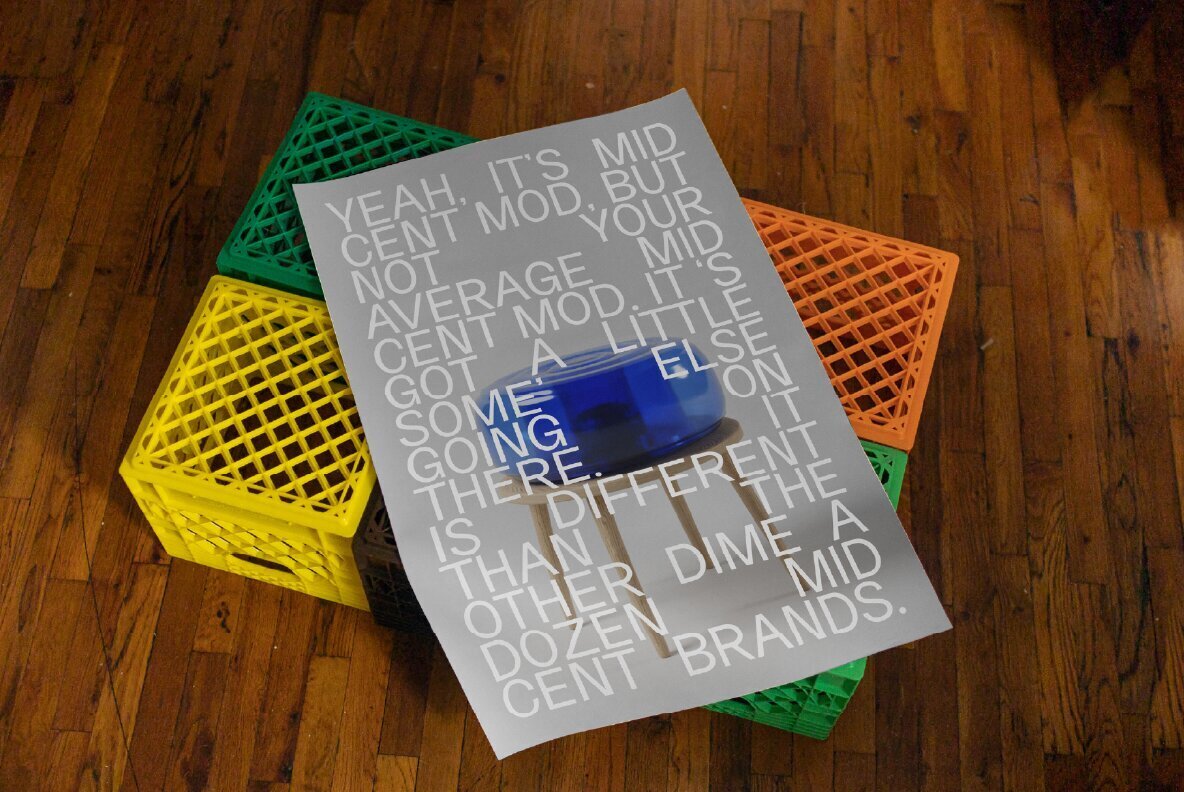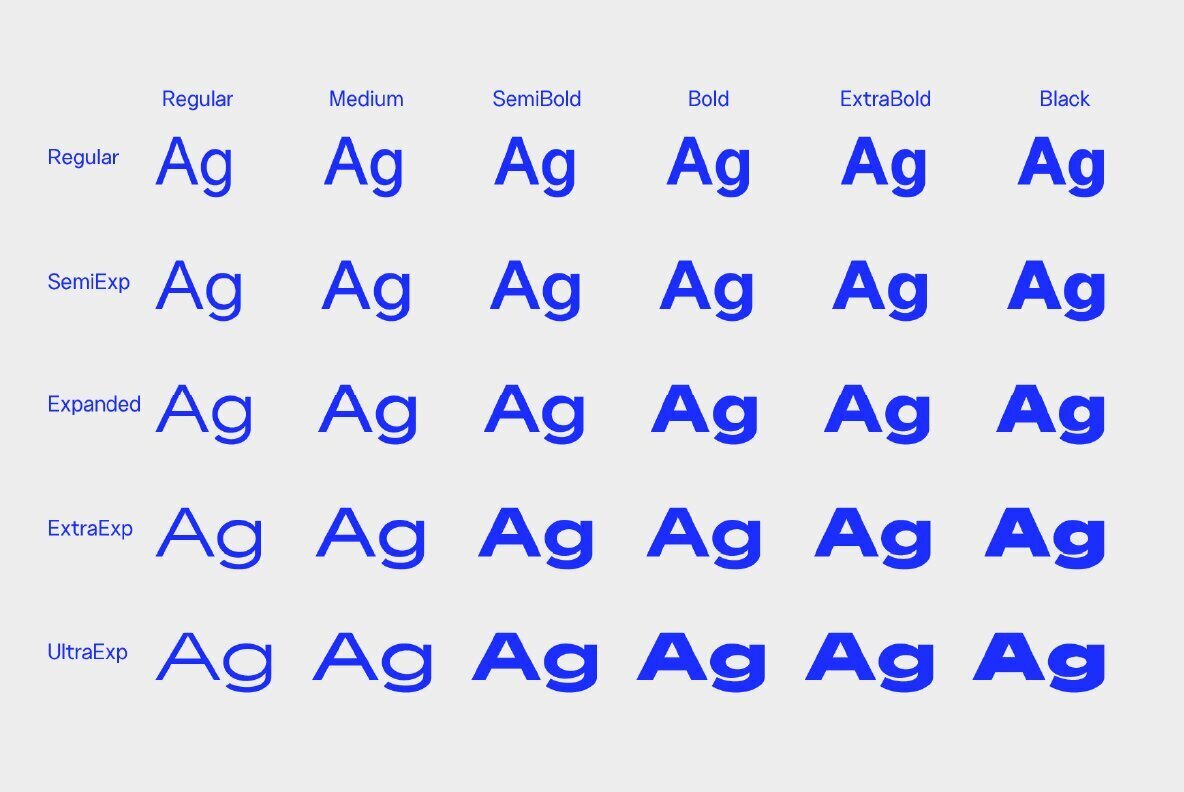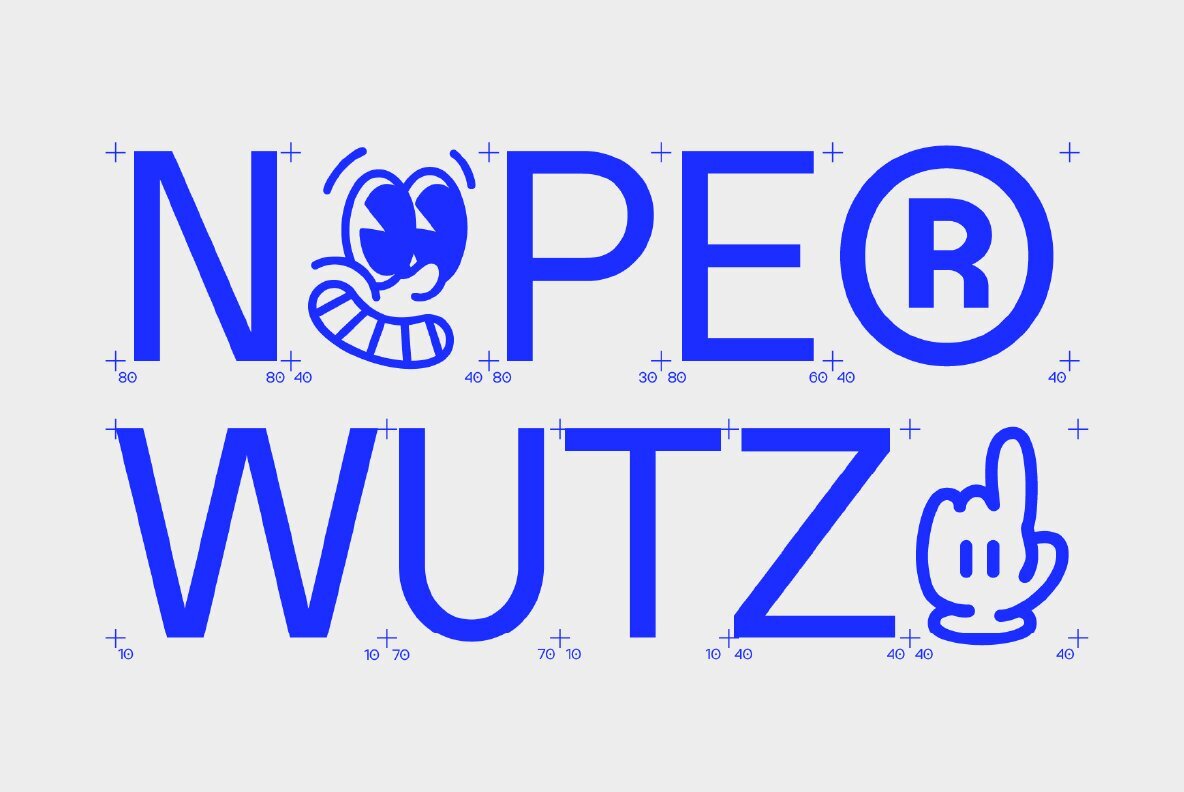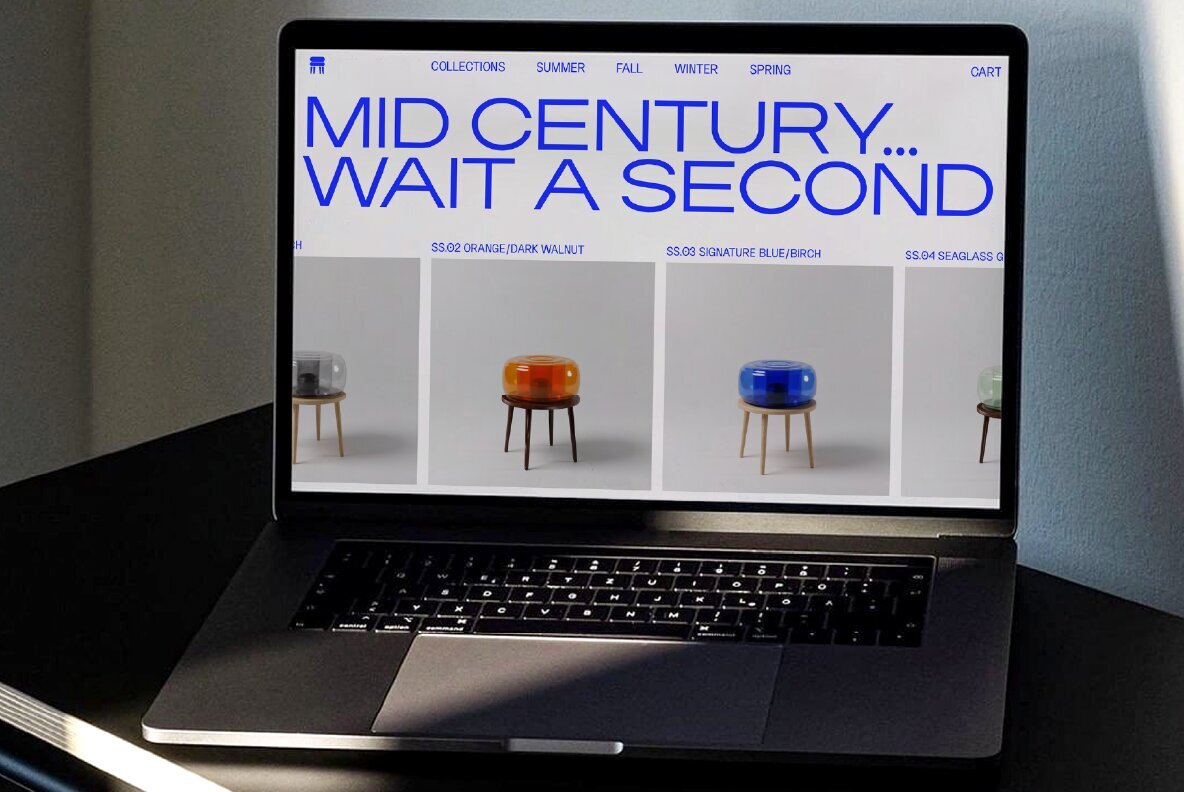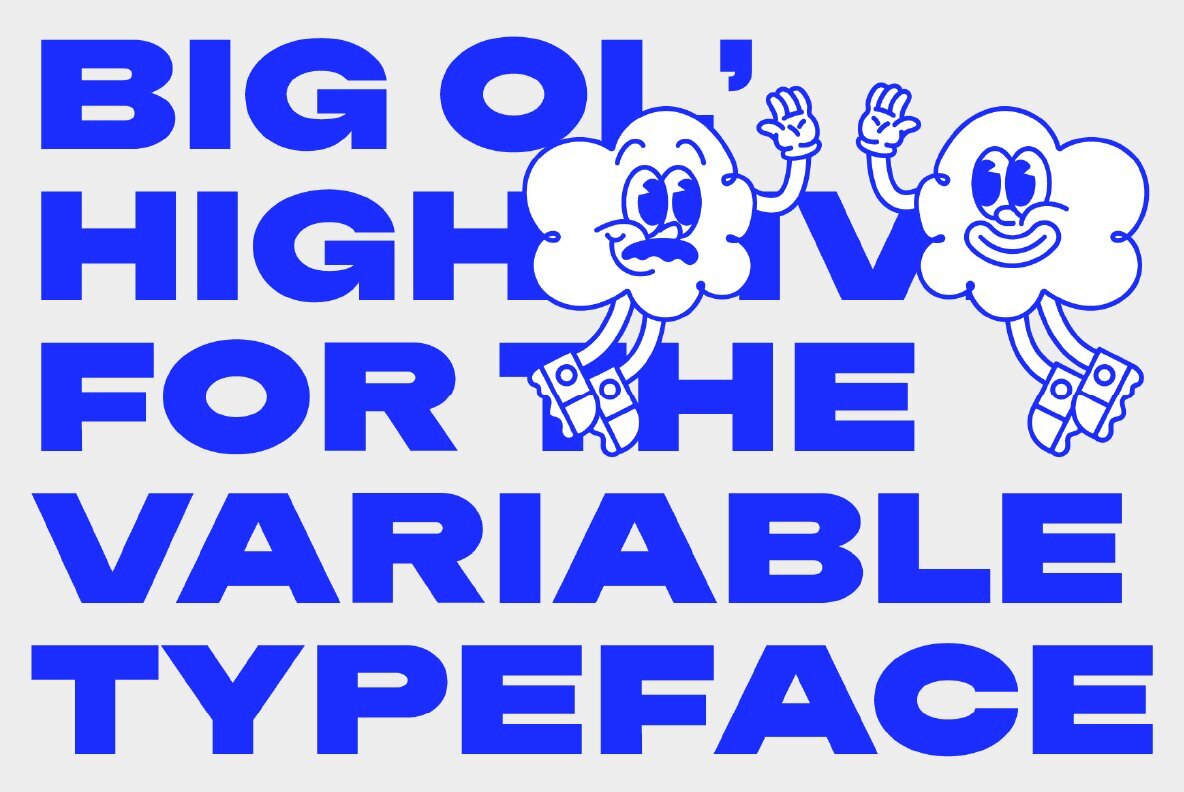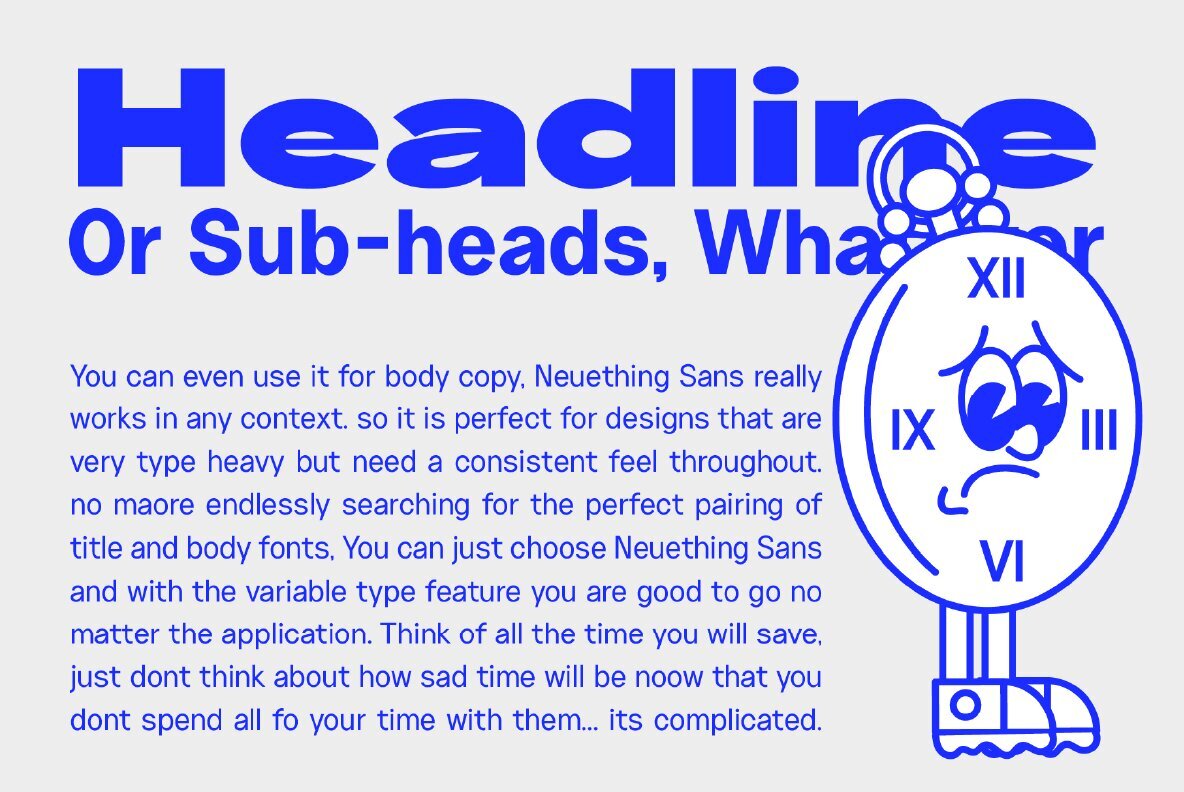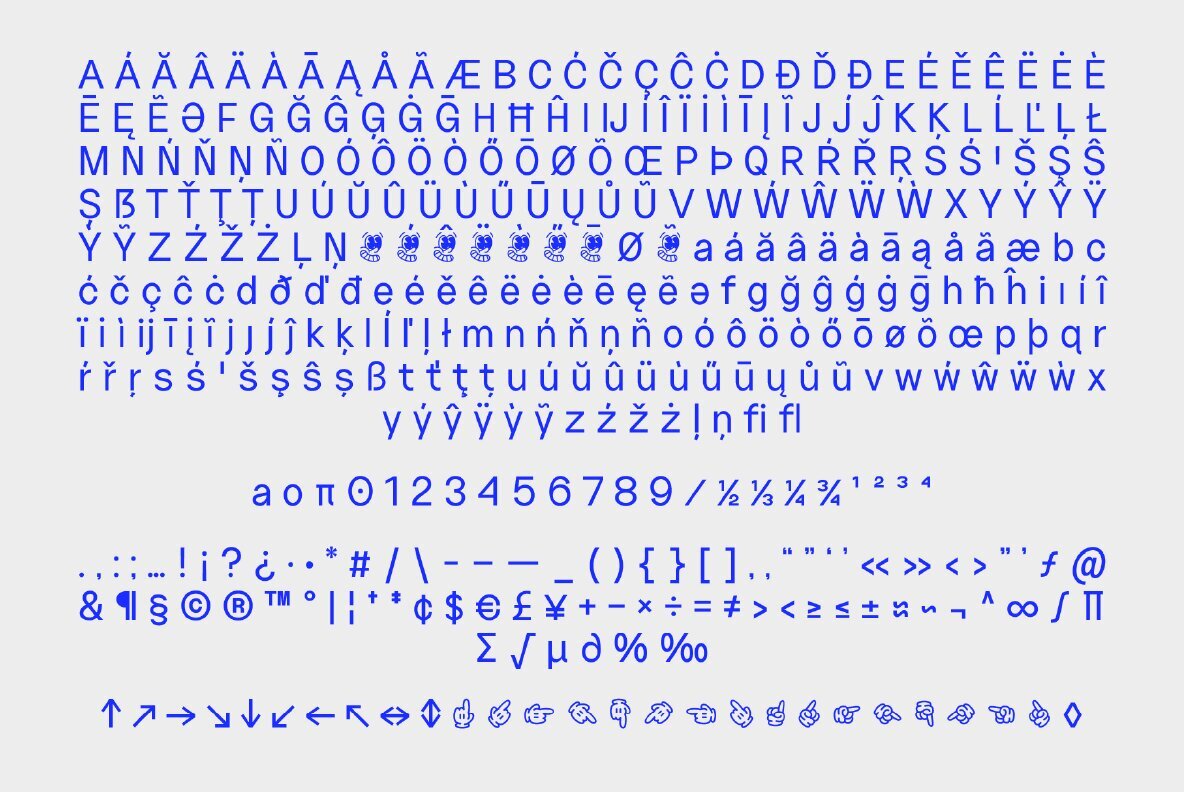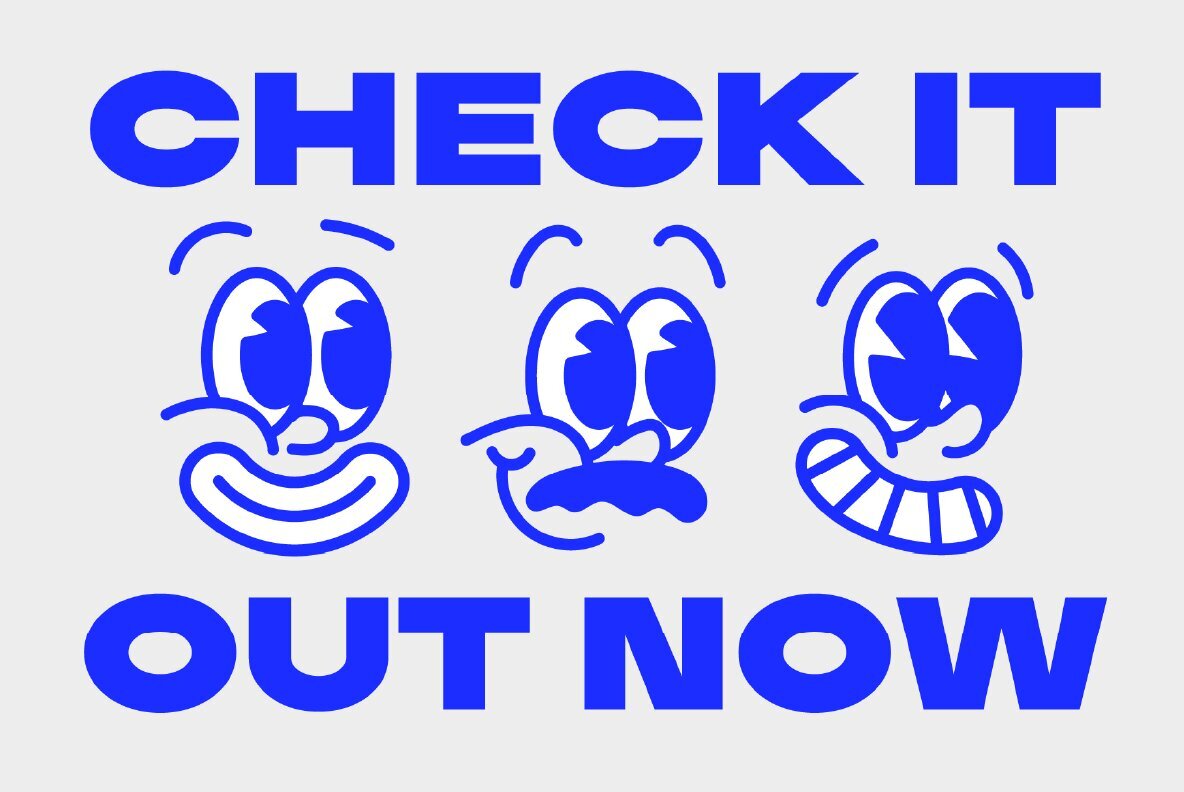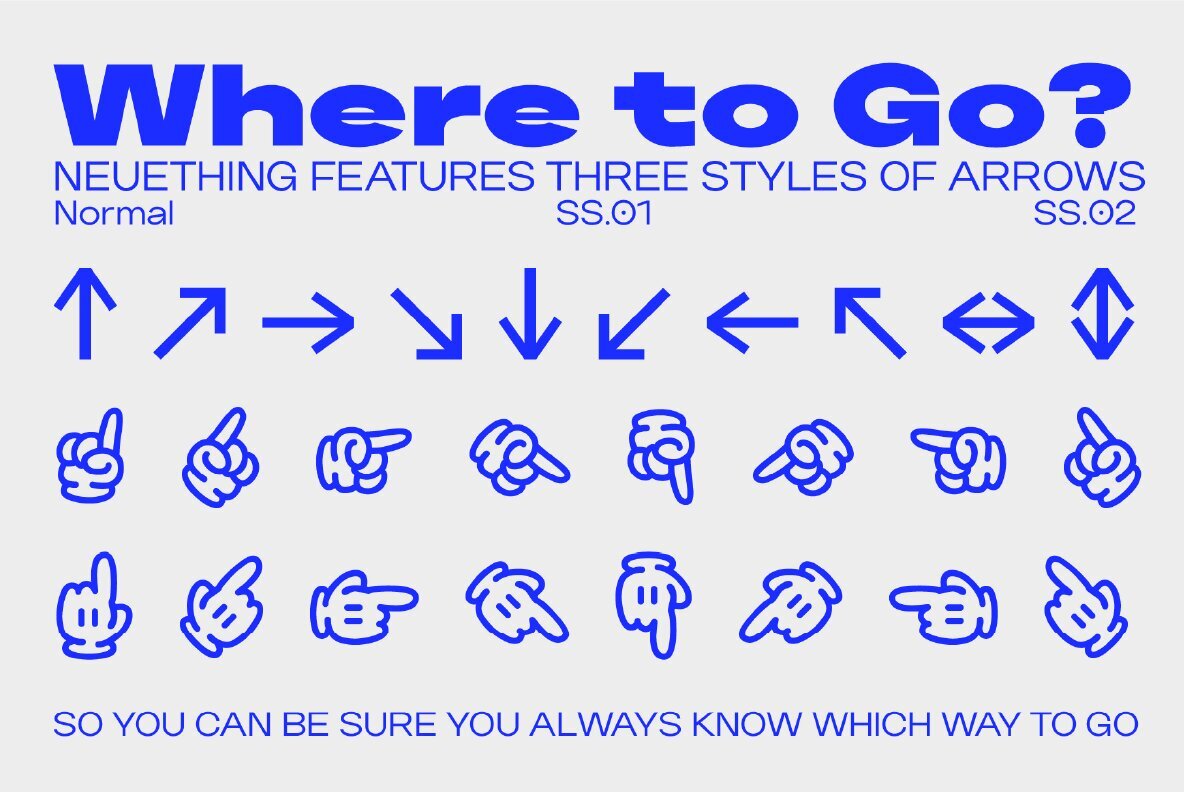
Neuething Sans Font
Neuething Sans is a creative's clean simple sans serif. It is extremely versatile, and I use it in every project because it pairs so well with any other typeface. It is perfect for body or headlines, posters, magazines, Instagram, books, branding, you name it. It has been meticulously crafted and refined over months and months until it has just enough personality to be a beautiful sans without calling attention to itself. This is your new go-to geometric sans serif. Whether it's modern, vintage, retro, contemporary, this can fit in anywhere. Helvetica who? Am I right...
- Added a variable version
- Updated a few alternative style sets for the arrows and the "O"